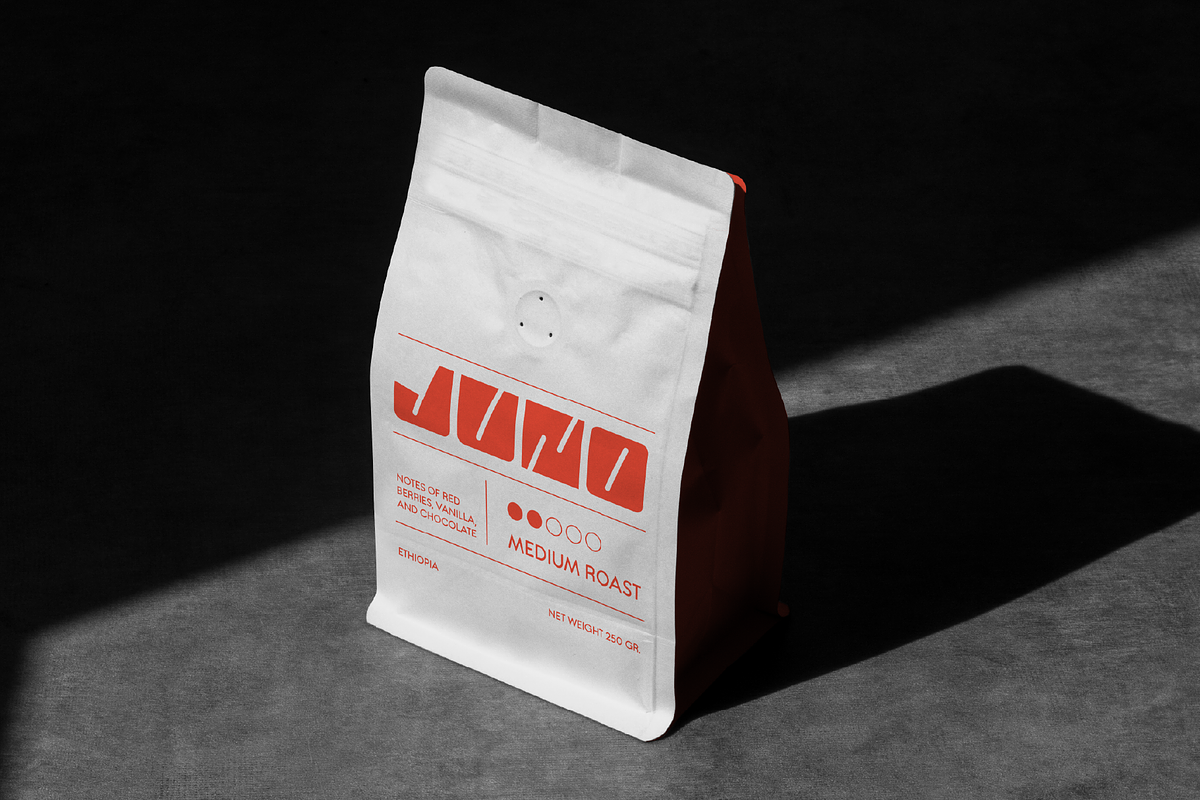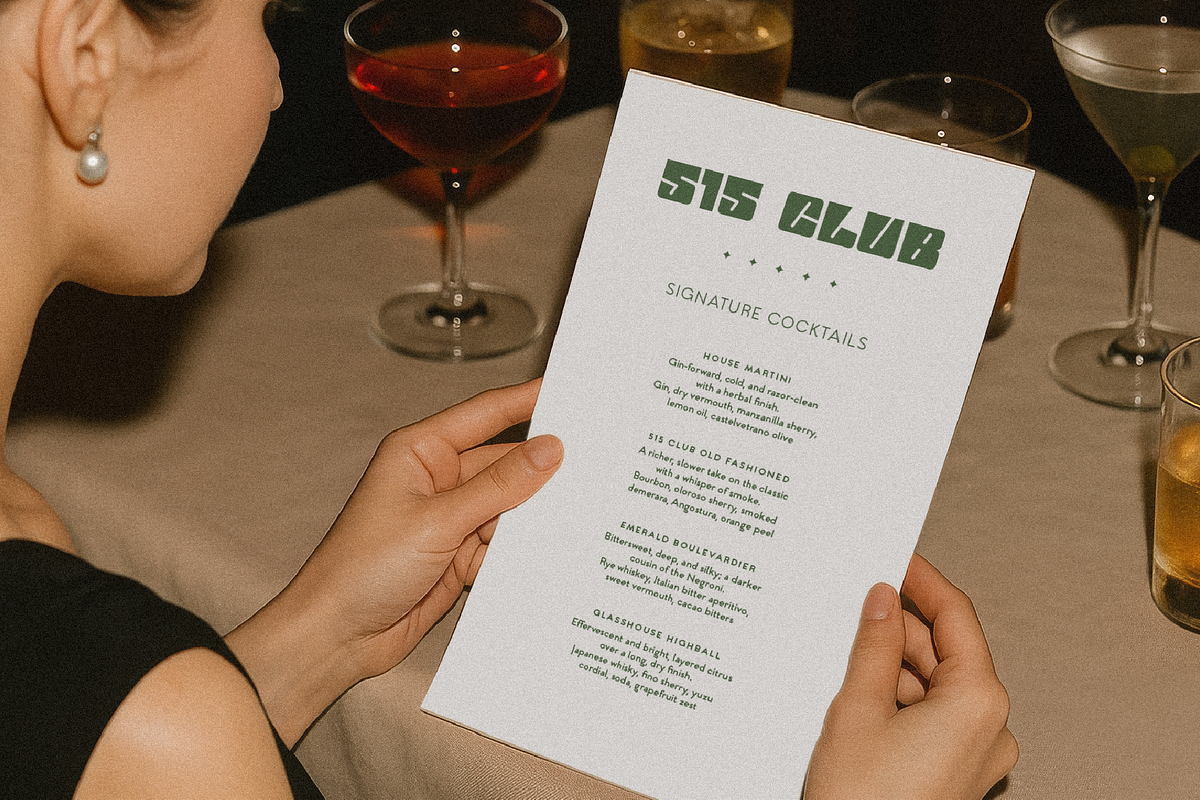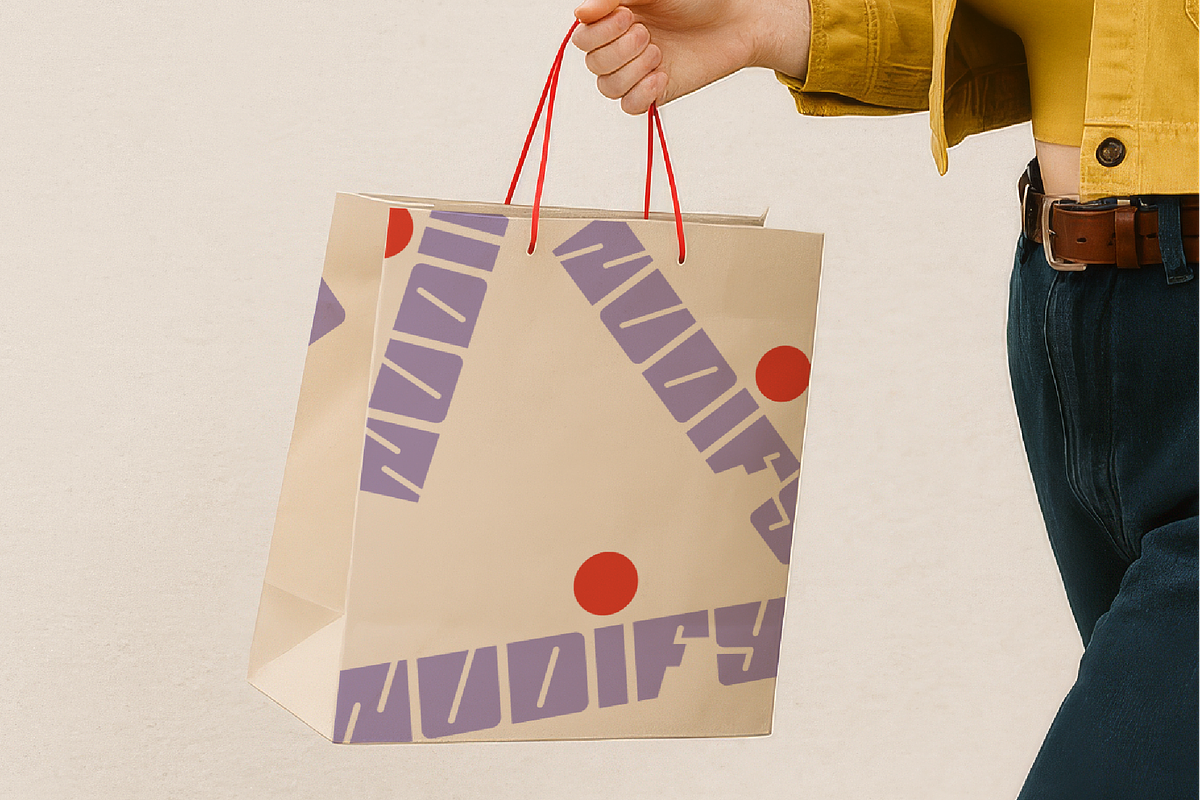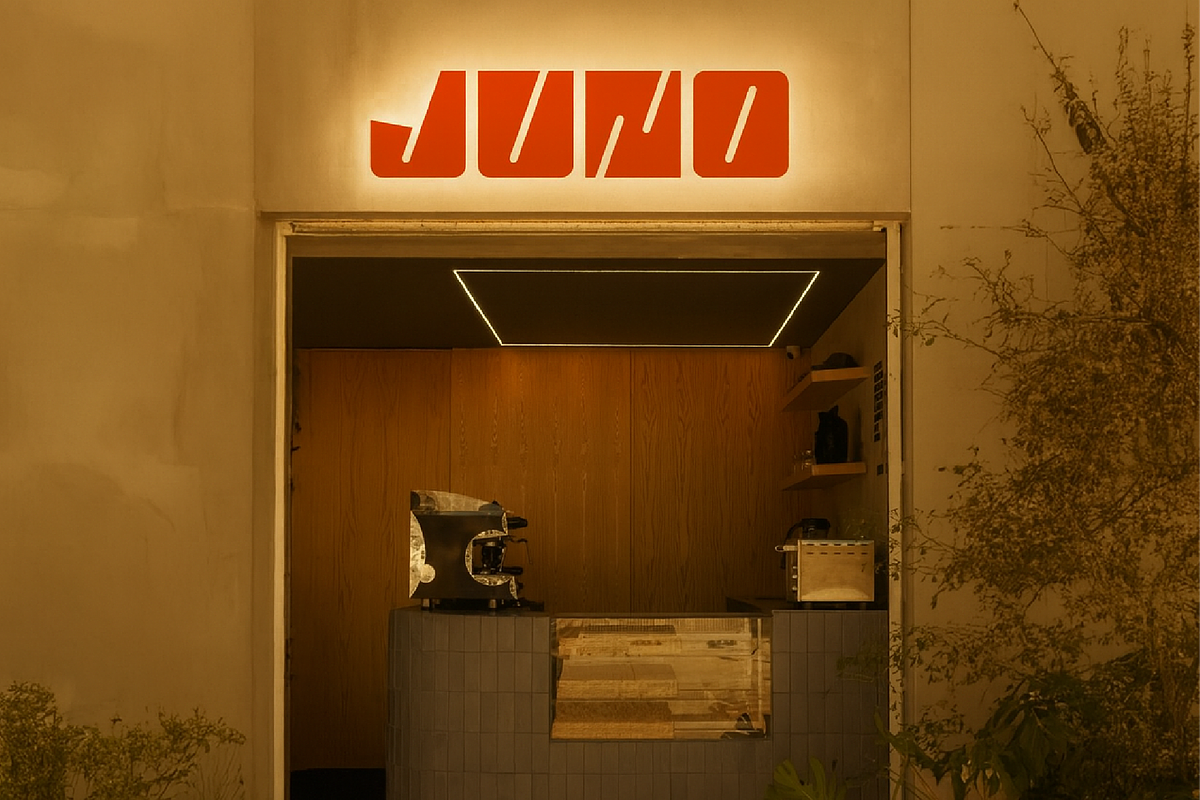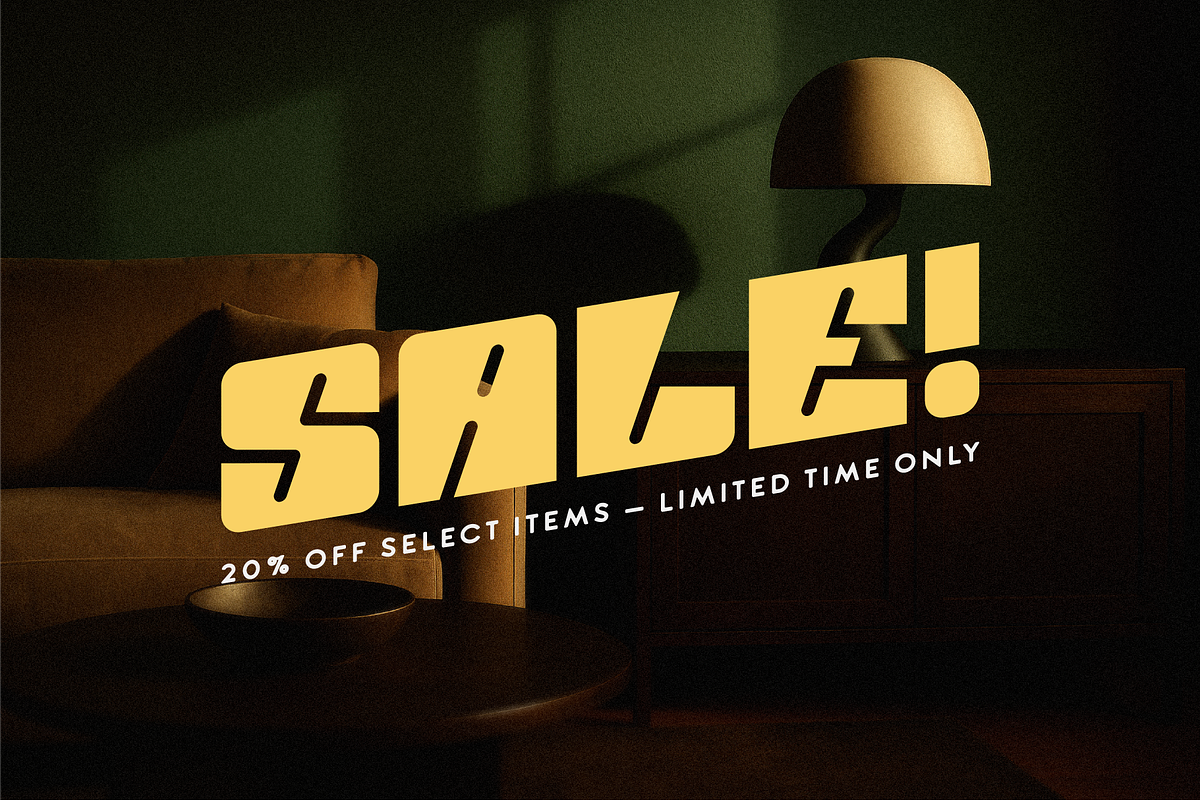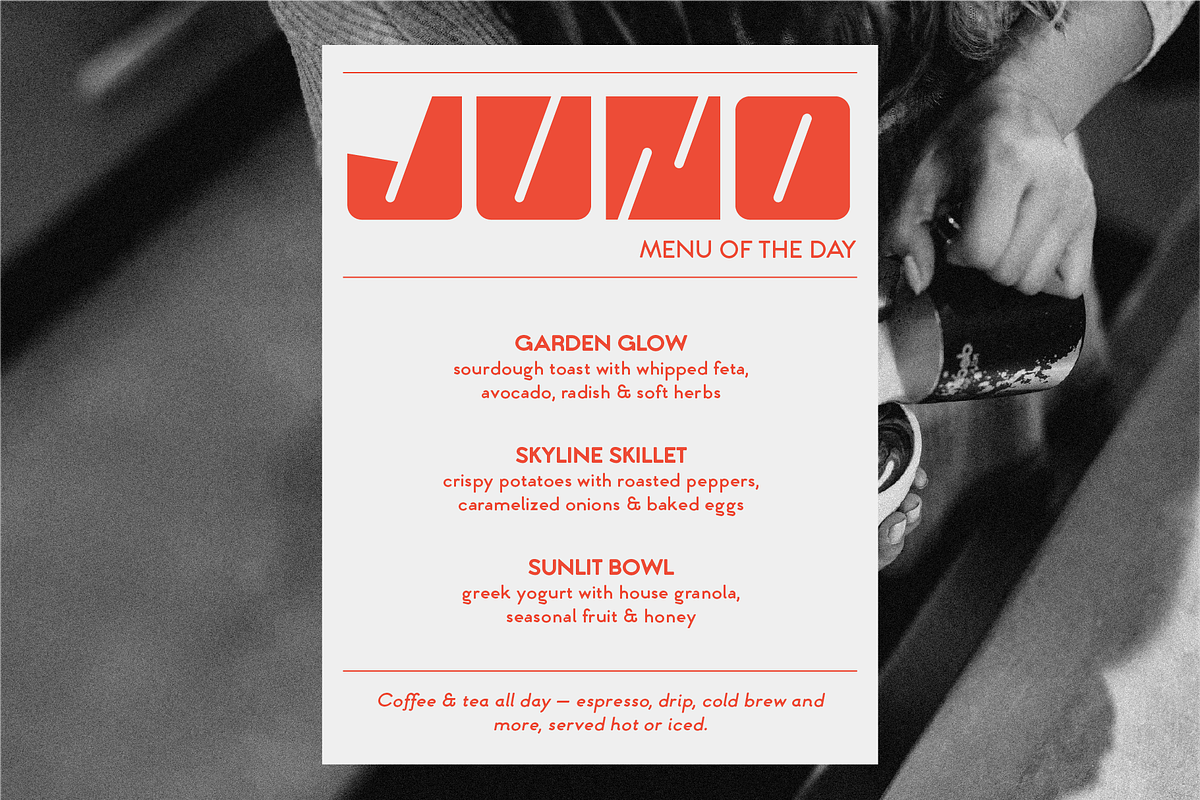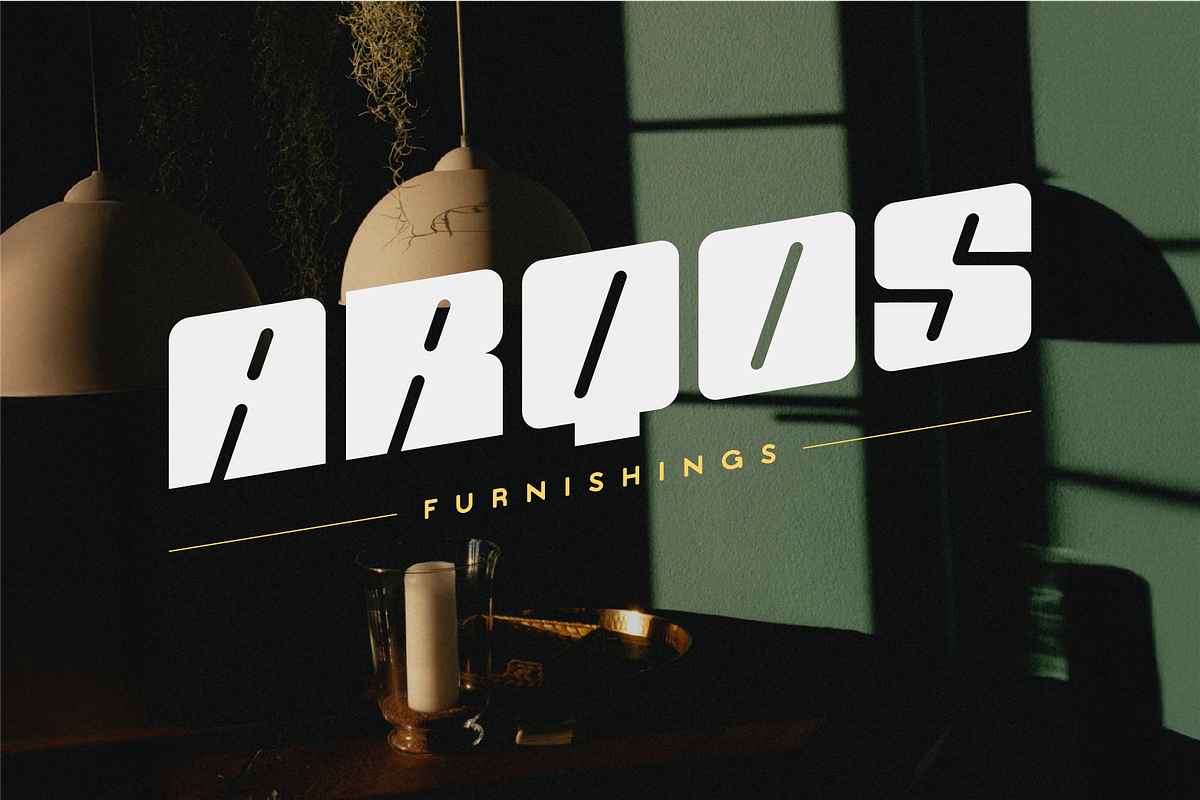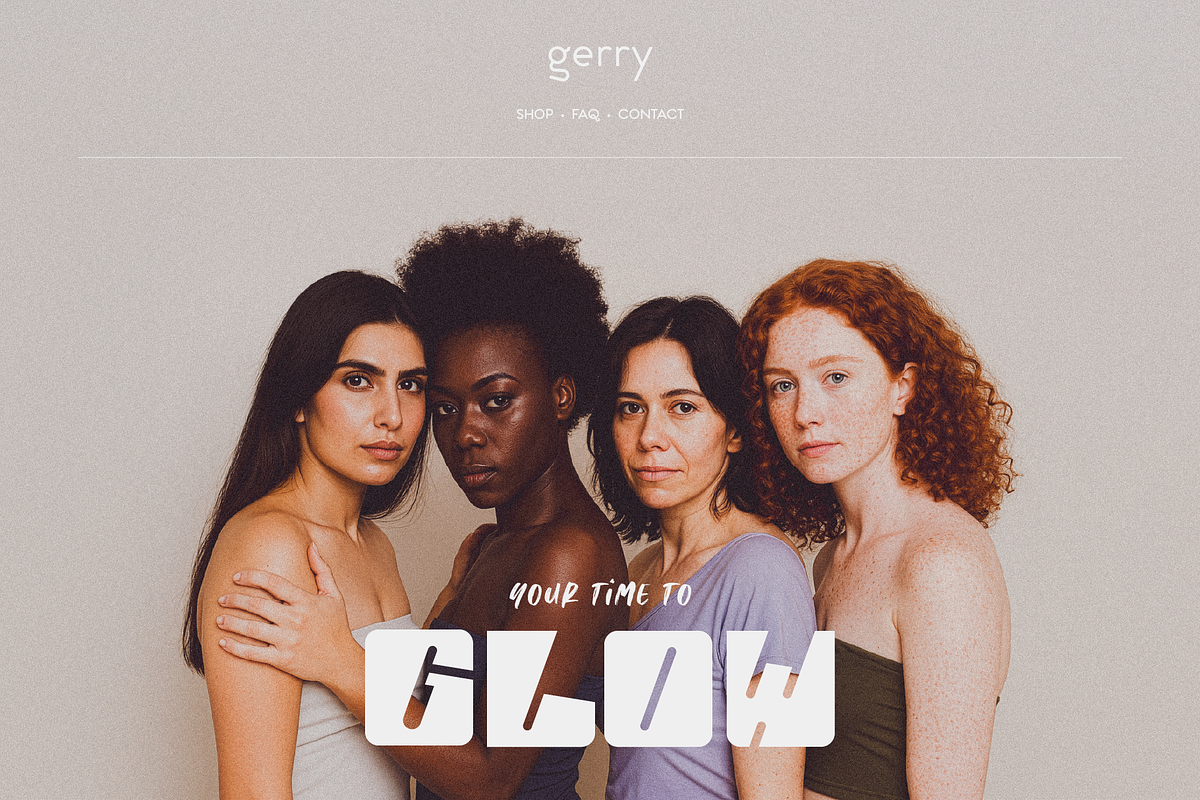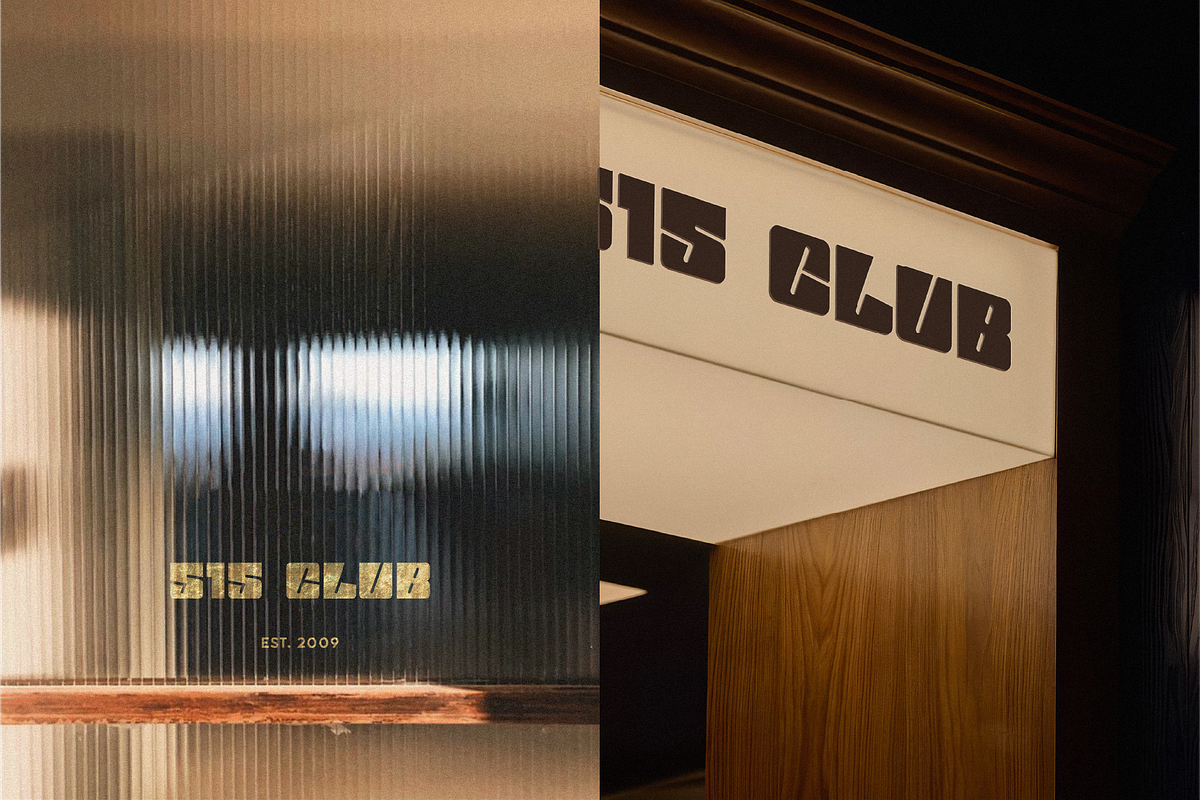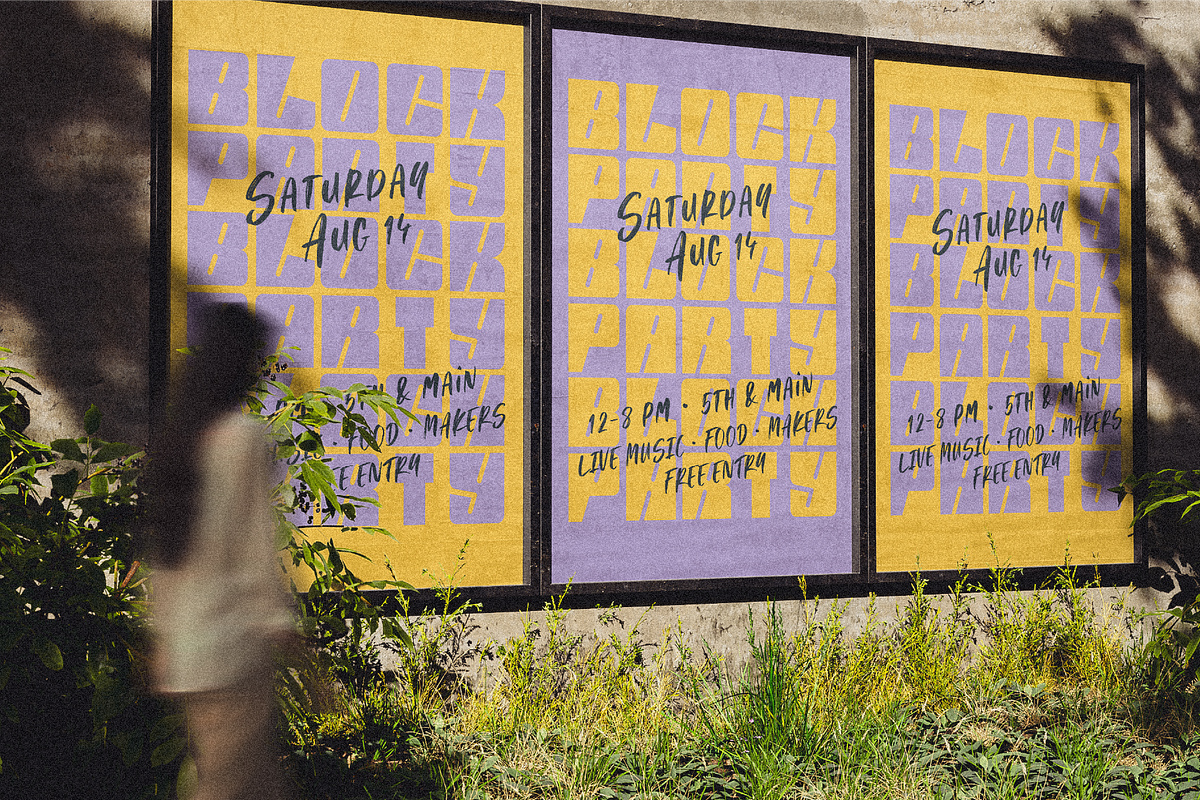
Seglano — Heavy Modular Display Type
Seglano is an ultra-bold, modular, caps-only display typeface built for impact. Angular cuts, rounded corners, and forward-leaning details create a bold, industrial tone that reads fast at distance and hits hard in logos, headlines, menus, and signage.
Why it works • Big blocks with clean geometry = high legibility at large sizes • Distinct slanted notches add motion and brandability • Works on curves and rectangles alike—great for stacked, tiled, or staggered wordmarks
Best for Brand marks and wordmarks, retail & café signage, packaging and labels, poster headlines, event graphics, apparel prints, social promos, bold editorial openers, wayfinding and window graphics.
Features • Uppercase A–Z • Numerals 0–9 • Punctuation & symbols • Multilingual Latin support